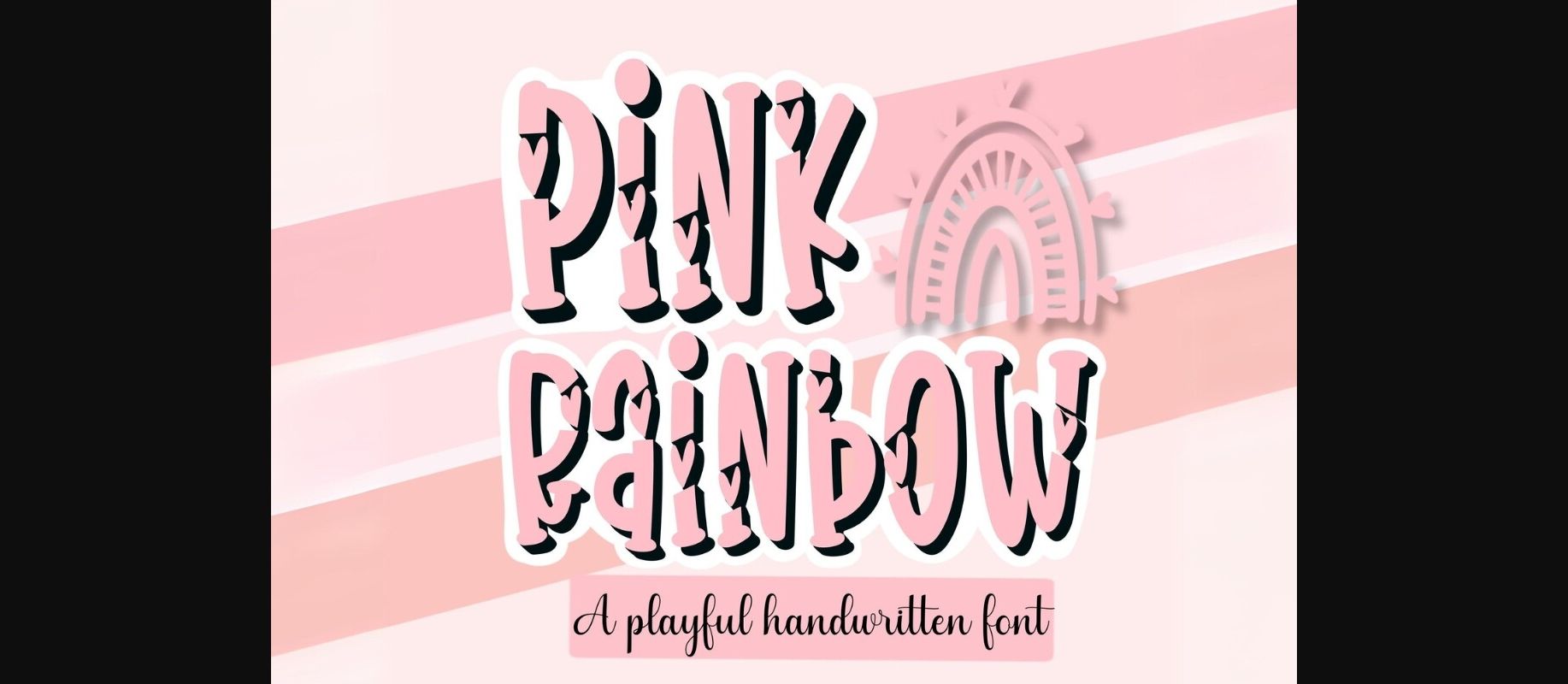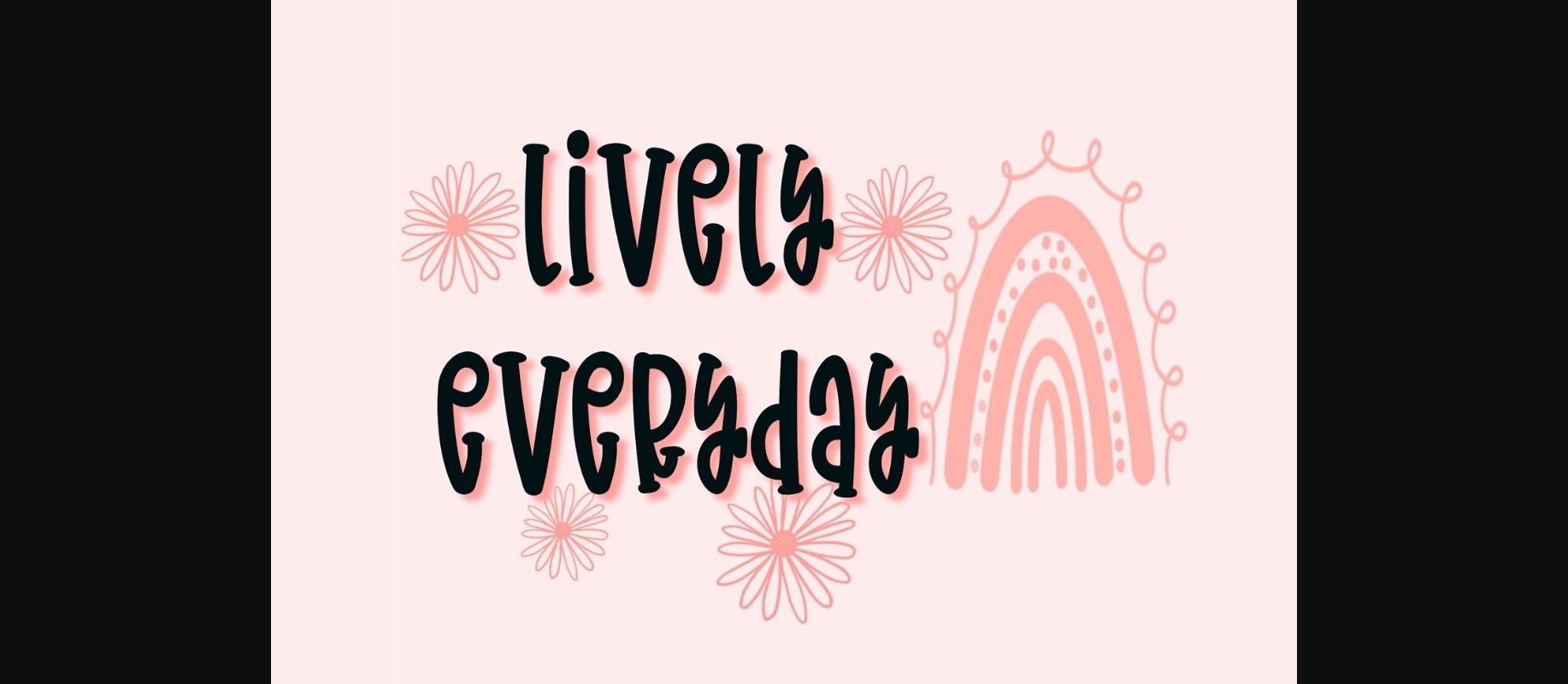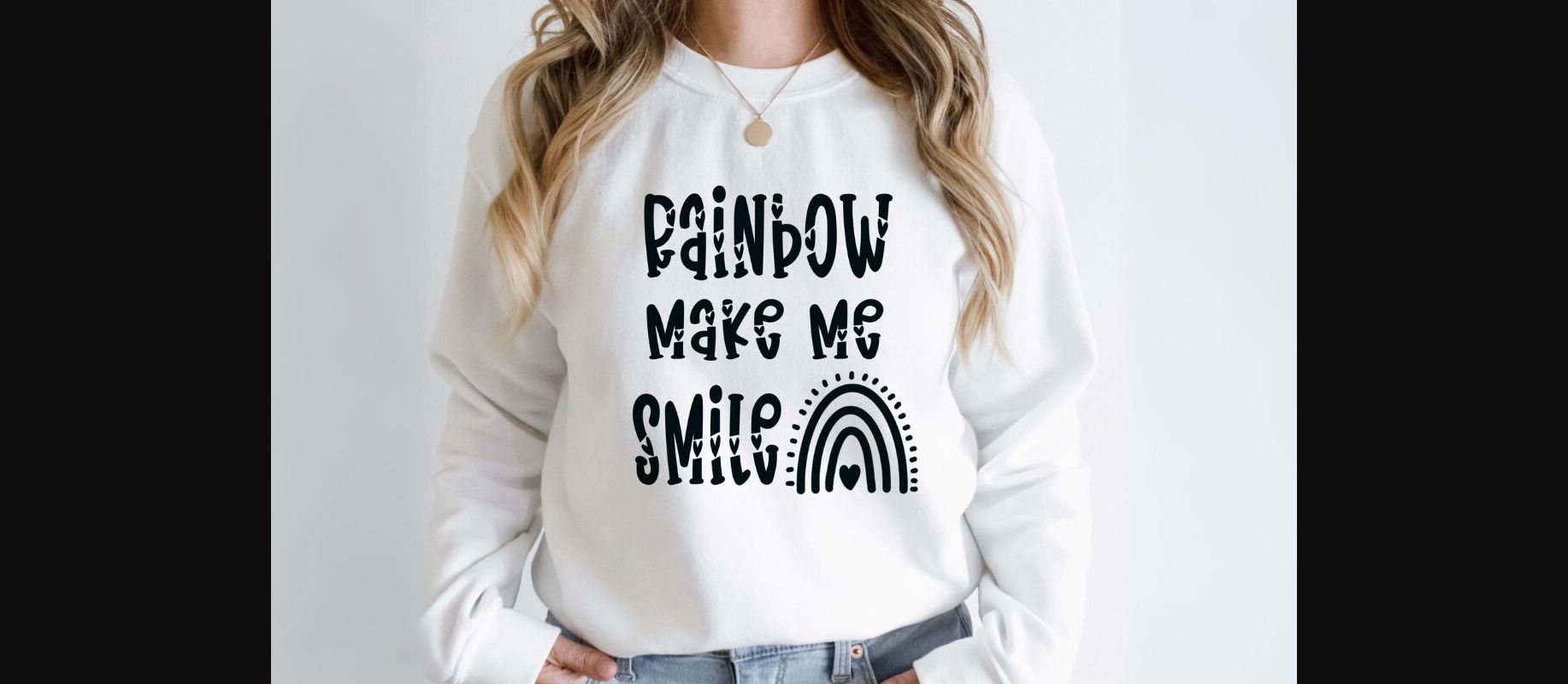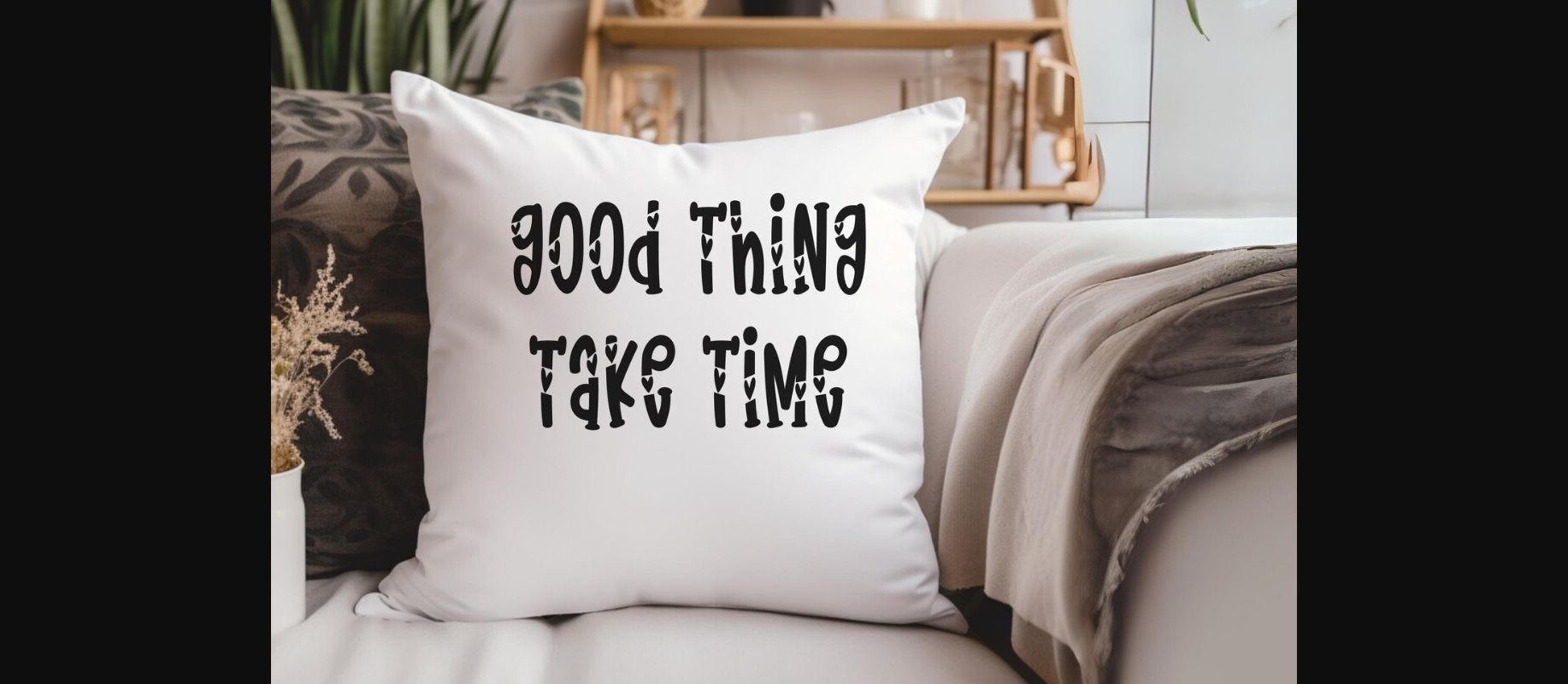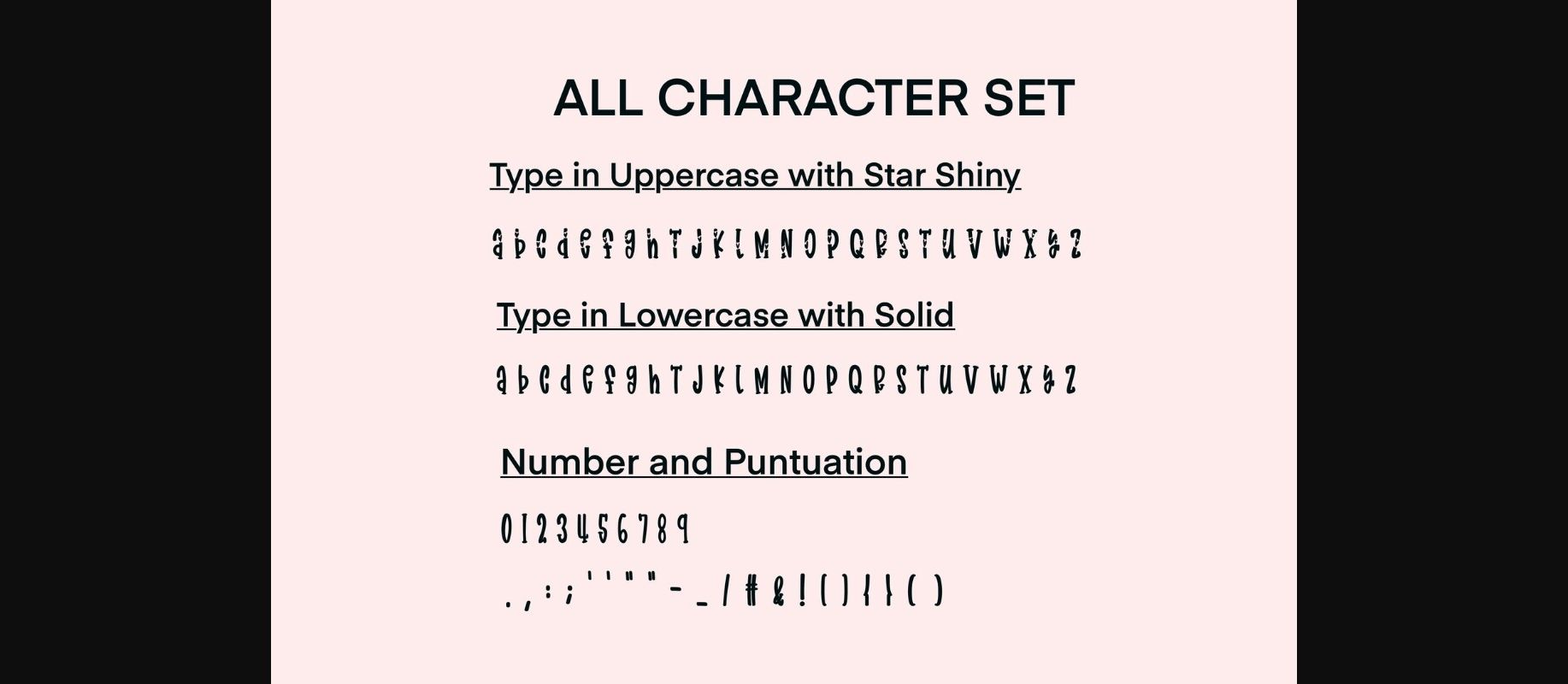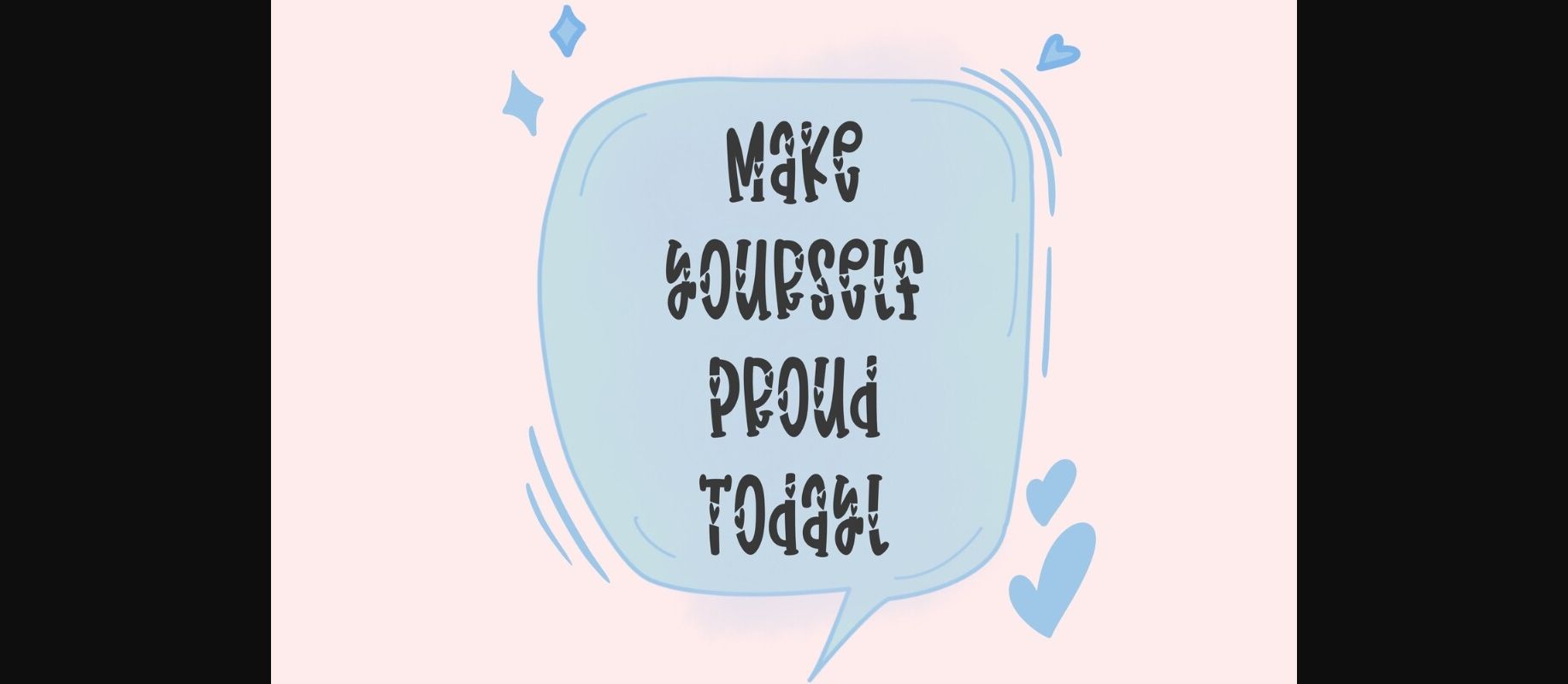
Pink Rainbow Font
About Pink Rainbow Font
Pink Rainbow Font is a cute decorative font that uses tall, playful letters and is a bit quirky, adorned with lovely, sweet mini hearts. Its cute, romantic vibe and casual charm will help you create lovely designs. It is perfect for creating a wide variety of designs, such as banners, social media posts, cards, content, mugs, t-shirt designs, stationery, bags, hats, pillows, stickers, and much more. Masterfully designed to become a true favorite, this font has the potential to bring each of your creative ideas to the highest level!